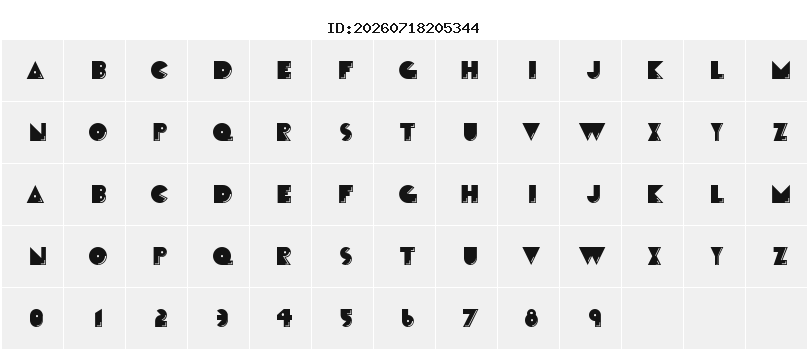
CrackMan Front Preview
• Font Name: CrackMan Front
• Designer: Ray Larabie
About CrackMan Front.ttf
CrackMan Front.ttf is a modern, elegant sans-serif font designed for ultimate readability and visual harmony. Perfect for branding, headlines, web design, and print materials.